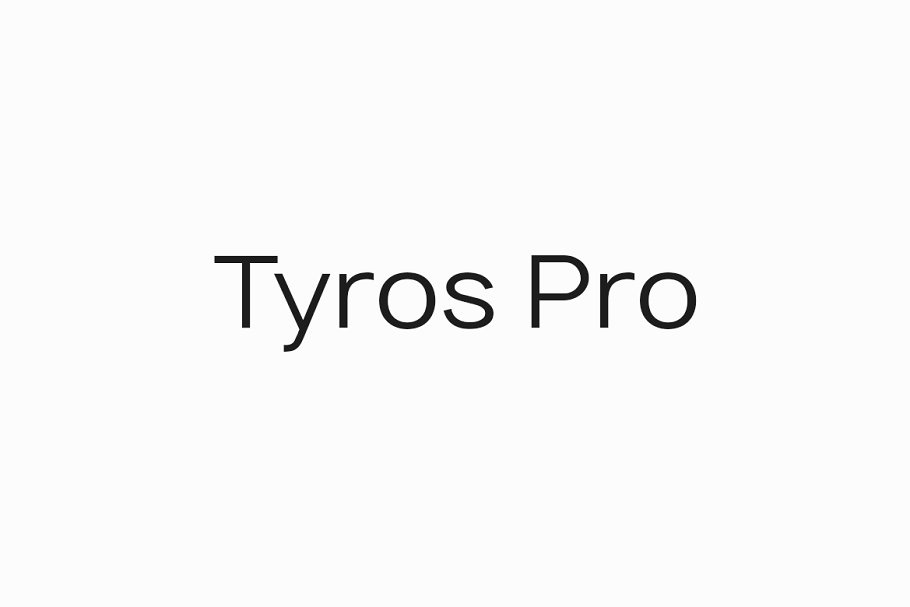
Tyros Pro Font
Tyros Pro Font is perfect for logo design, branding projects, digital art, web design, print materials, packaging design, poster creation, book covers, magazine layouts, and modern advertising campaigns. This versatile typeface excels in both digital and print media applications.
Tyros Pro Font is exciting because it delivers professional-grade typography with exceptional legibility and sophisticated styling that elevates any design project. Its refined letterforms and precise kerning create polished communications that command attention while maintaining excellent readability across all sizes and applications.
The Tyros Pro Font family includes regular, bold, light, italic, condensed, extended, and display variants, providing designers with comprehensive typographic options for various design scenarios and hierarchical text arrangements.
Tyros Pro Font stands as a testament to professional typography excellence, combining technical precision with aesthetic sophistication to deliver outstanding results for demanding design projects. This premium typeface offers the reliability and versatility that creative professionals require when working with high-profile clients and mission-critical communications. The font's professional character makes it an ideal choice for corporate presentations, annual reports, and brand documentation that demands utmost credibility.
The engineering behind Tyros Pro Font reflects years of typographic refinement, with each character optimized for maximum impact and clarity. This meticulous development process ensures consistent performance across diverse media platforms, from responsive web interfaces to large-format print installations. The font's balanced proportions and intelligent spacing create seamless reading experiences that enhance message comprehension and audience engagement.
From executive presentations to marketing collateral, Tyros Pro Font provides the typographic foundation for professional communications that inspire confidence and convey expertise, ensuring your message resonates with audiences and achieves desired business objectives.